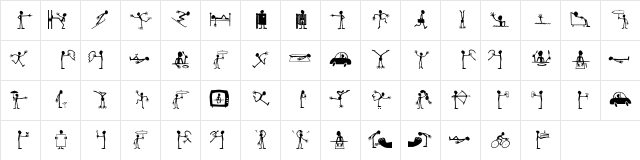
GiacomettiLL Regular Free Font
GiacomettiLL Regular
Design Context for GiacomettiLL
GiacomettiLL is a composed and adaptable typeface that performs quietly and consistently across a wide range of design contexts.